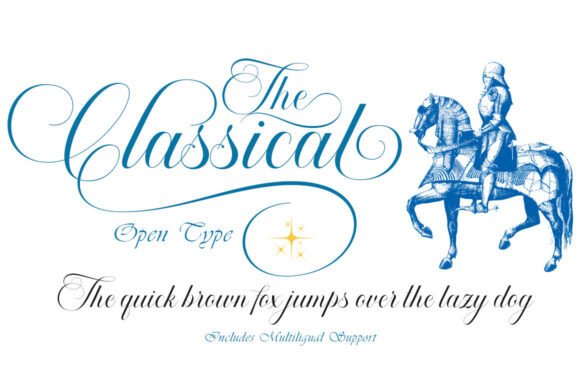
Mastery Calligraphy Font
Introducing Mastery Calligraphy, a tastefully crafted script font, exuding both classic elegance and contemporary sophistication. This alluring font beautifully marries the timeless appeal of copperplate style with a touch of modern refinement. Extraordinary care to detail makes Mastery Calligraphy not simply a font, but a masterwork of design. Sporting clean lines paired with gentle femininity, this font ensures a smooth and exquisite reading experience driven by luxury-rich letter connections. Mastery Calligraphy is an ideal choice for various formal applications, including but not limited to event invitations, sophisticated labels, deluxe restaurant menus, iconic logos, high-end fashion and makeup. It’s also the perfect font for stylish stationery, gripping novels, trend-setting magazines, enthusiast-read books, heartfelt greeting cards, graceful wedding invitations, product packaging and all manner of advertising that seeks to command attention. Experience the versatility and elegance of Mastery Calligraphy, where style resonates with every stroke.